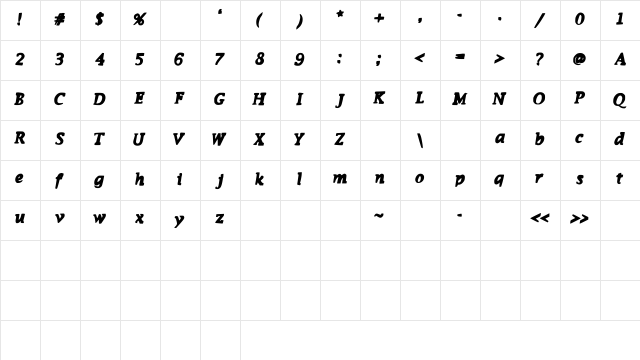
FunkyMonkey Medium
Design Context for FunkyMonkey Typeface
FunkyMonkey trades formality for fun, with bouncy, characterful letterforms that bring warmth and energy to any project.
Great for children's books, toy packaging, family event branding, and casual consumer-facing design.
Font Pairing: Pairs well with a rounded or humanist sans for body copy, maintaining the friendly tone without relying on FunkyMonkey to carry extended reading.
Pro Tip: Avoid using FunkyMonkey for long passages of text — it works best for headlines, labels, and short calls to action.